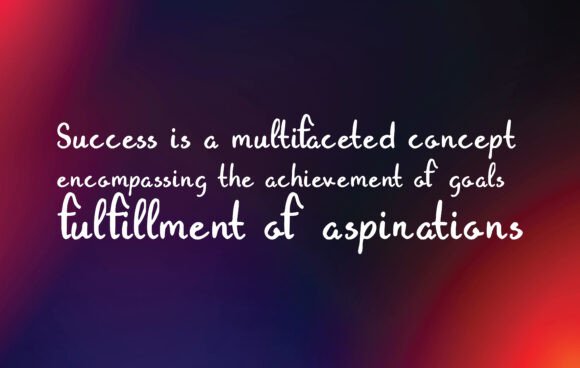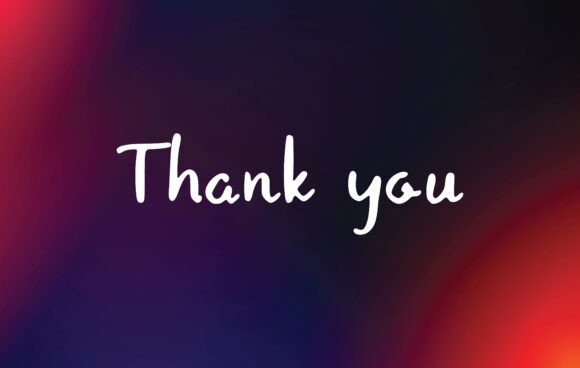
Introducing Ezra Font: Elevate Your Creative Projects with Elegance
Are you on the lookout for a font that can add a touch of elegance and sophistication to your creative projects? Look no further than Ezra Font, a lovely and beautiful handwritten font that has the potential to take your ideas to the highest level. In this article, we’ll dive into the features and benefits of Ezra Font, and explore why it’s the best choice for creating eye-catching logos, branding, and quotes.
What is Ezra Font?
Ezra Font is a stunning handwritten font that exudes elegance and refinement. Its unique and flowing script makes it perfect for a wide range of creative projects, from logos and branding to quotes and social media graphics. With Ezra Font, you can add a personal touch to your designs and make them stand out from the crowd.
Key Features of Ezra Font
- Handwritten Elegance: Ezra Font boasts a beautiful, handwritten script that adds a touch of sophistication to any design.
- Versatility: This font is perfect for a wide range of creative projects, including logos, branding, quotes, and social media graphics.
- Easy to Read: Despite its elegant and cursive nature, Ezra Font is easy to read, making it perfect for body text and captions.
- Highly Legible: The font’s clear and concise lettering ensures that your message gets across, even at smaller font sizes.
Why Choose Ezra Font?
So, why should you choose Ezra Font for your creative projects? Here are just a few compelling reasons:
- Create Eye-Catching Logos: With Ezra Font, you can create stunning logos that capture the essence of your brand and leave a lasting impression on your audience.
- Elevate Your Branding: Ezra Font’s elegant script makes it perfect for branding projects, from business cards to letterheads and packaging.
- Add a Personal Touch: This font’s handwritten nature adds a personal touch to your designs, making them more relatable and engaging.
- Stand Out from the Crowd: With Ezra Font, you can create unique and eye-catching designs that set you apart from the competition.
Tips for Using Ezra Font
To get the most out of Ezra Font, here are some tips to keep in mind:
- Use it for Headings and Titles: Ezra Font is perfect for headings and titles, where its elegant script can really shine.
- Pair it with Other Fonts: Experiment with pairing Ezra Font with other fonts to create a unique and visually appealing typography.
- Adjust the Font Size: Don’t be afraid to experiment with different font sizes to create visual hierarchy and emphasis.
- Use it for Quotes and Captions: Ezra Font’s easy-to-read nature makes it perfect for quotes and captions, where its elegance can add a touch of sophistication.